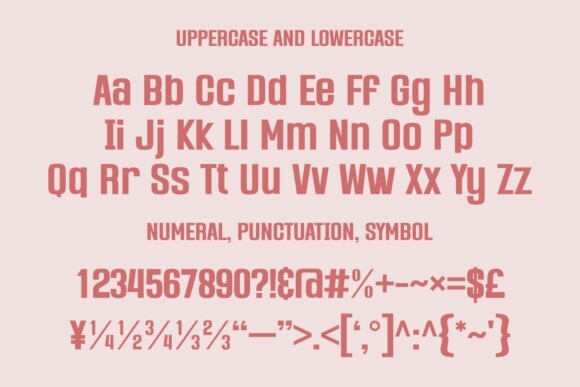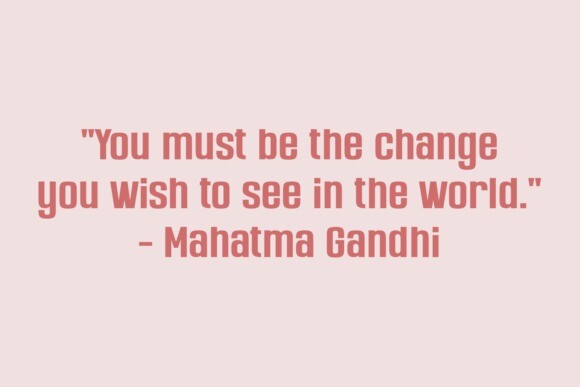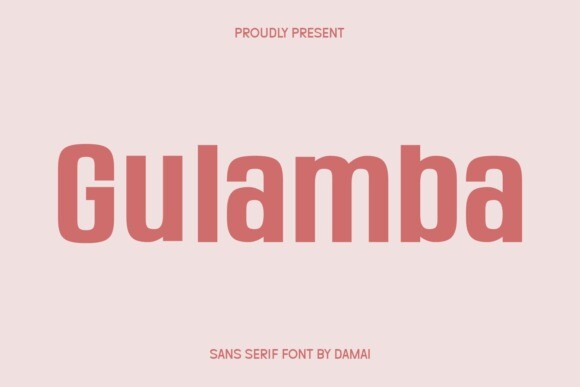
Gulamba Font
Designer: Damai (7NTypes)
Gulamba Font, a clean and modern sans serif display font. With its simple lines and contemporary style, Gulamba adds a touch of elegance to any project. Perfect for headlines, titles, and eye-catching displays, this font is sure to make your design stand out.